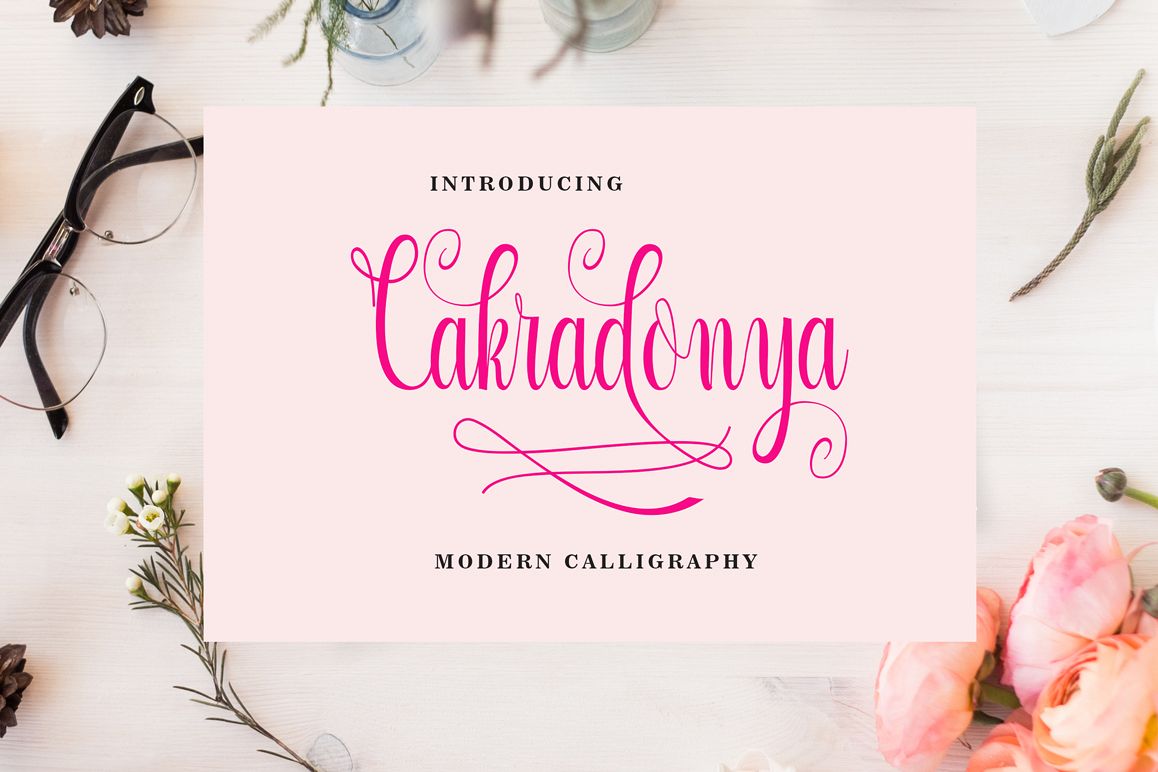
Cakradonya
is a new varian of handmade script typepace. present to you to complete your colections of script font. This typeface has been enriches with additional alternates characters up to 1030 glyphs. Do hope helpfully to catch any design soul.
The Features of this fonts is;
*Standart ligatures
*Stylistic Alternates
*Contextual Alternates
*Stylistic sets
*Swash
*Initial Form
*Medial Form
*Terminal Form